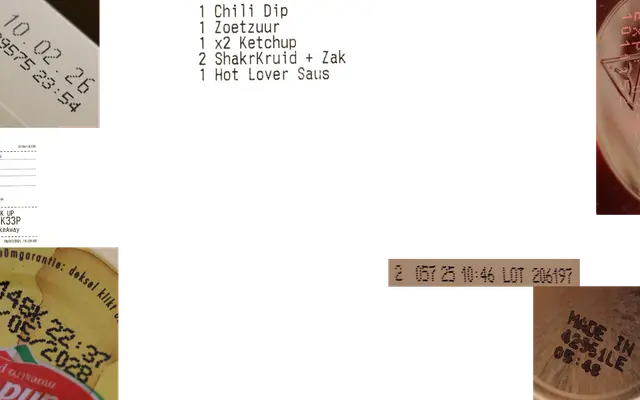
nono
A dot-matrix modular family by Xiaoyuan Gao built around a deliberate no-descender design rooted in her own childhood experience of learning Latin script in China without instruction on descenders.
The family spans four subfamilies across ten styles: nono core (Dot, Round, Square, Tube), nono Particle (A, B, C), nono RGB, and nono Shaky, the last of which is a multiaxial variable font controlling width, movement and size. The RGB subfamily uses OpenType contextual alternates to randomly assign one of four colours to each character as you type. The absence of descenders is a conscious design choice drawn from Gao's primary-school habit, turning an uncorrected mistake into a consistent and distinctive formal principle.
Built on a dot-matrix grid with a no-descender design and multiple stylistic subfamilies including particle, RGB colour and variable shaky cuts; firmly display/experimental rather than any conventional text category.